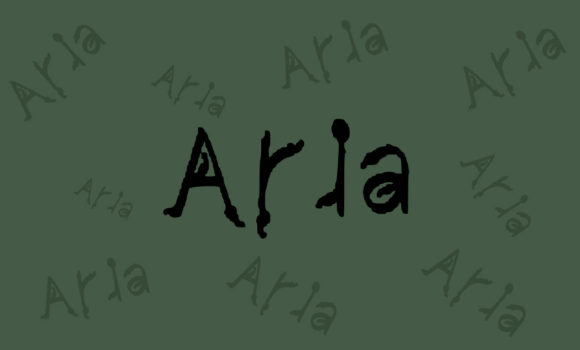
Meet Aria Font, a striking brushed display font that exudes elegance and sophistication. Crafted by the renowned Gold Nib Studio, Aria is a timeless typeface that captivates with its simplicity and originality, making it the perfect choice for creating captivating magazine articles that demand attention.
Unleash your creativity and explore the endless possibilities with Aria Font, a versatile font designed to elevate your magazine articles to new heights. Its clean and legible design ensures effortless readability, while its distinctive brushstrokes add a touch of personality and intrigue, leaving your readers mesmerized from the first word to the last.
Immerse yourself in the world of Aria Font and discover a font that speaks volumes without uttering a single word. Its carefully crafted characters dance across the page, inviting your readers on a journey of discovery, exploration, and enlightenment. Whether you're crafting thought-provoking features, captivating editorials, or informative news pieces, Aria Font provides the perfect backdrop for your words to shine.
With Aria Font as your creative ally, you'll effortlessly create magazine articles that resonate with your audience, leaving them captivated and eager for more. Its versatility extends beyond magazine articles, making it an ideal choice for a wide range of design projects, including posters, flyers, branding materials, and social media graphics.
Elevate your designs to new heights with Aria Font, a font that embodies creativity, originality, and elegance. Its intuitive design and effortless readability make it a breeze to use, ensuring that your message is conveyed with clarity and impact. Discover the power of Aria Font today and unlock a world of design possibilities.